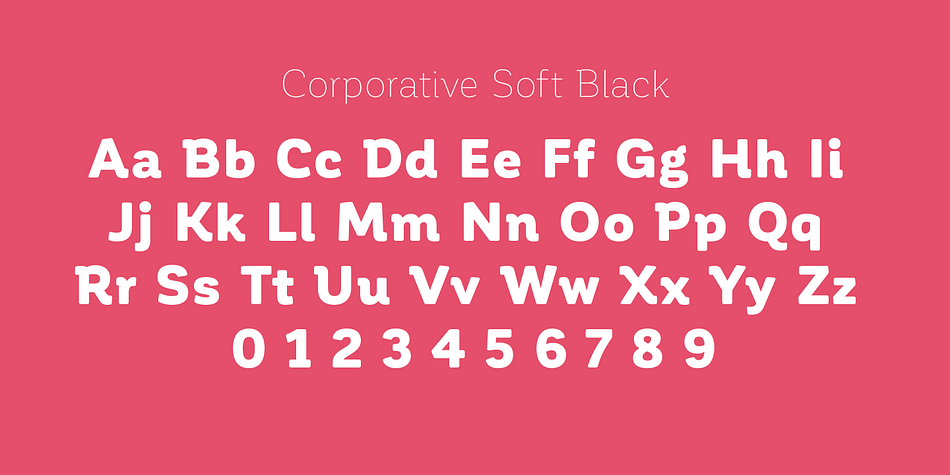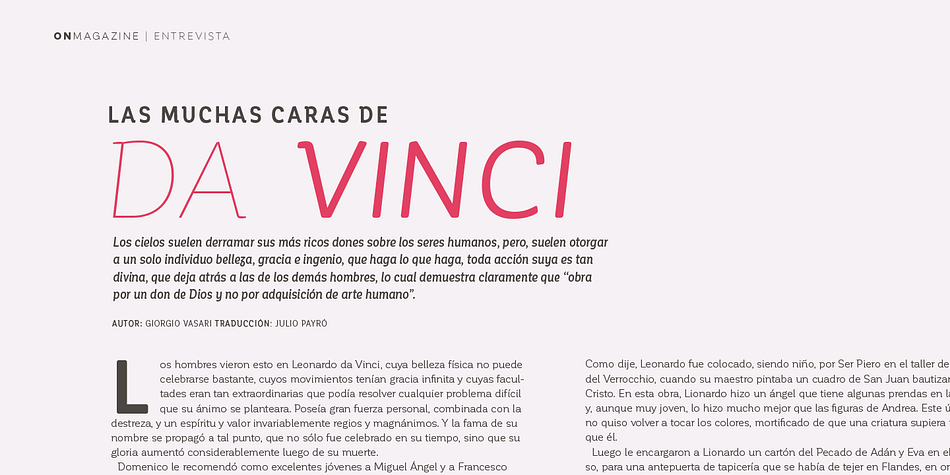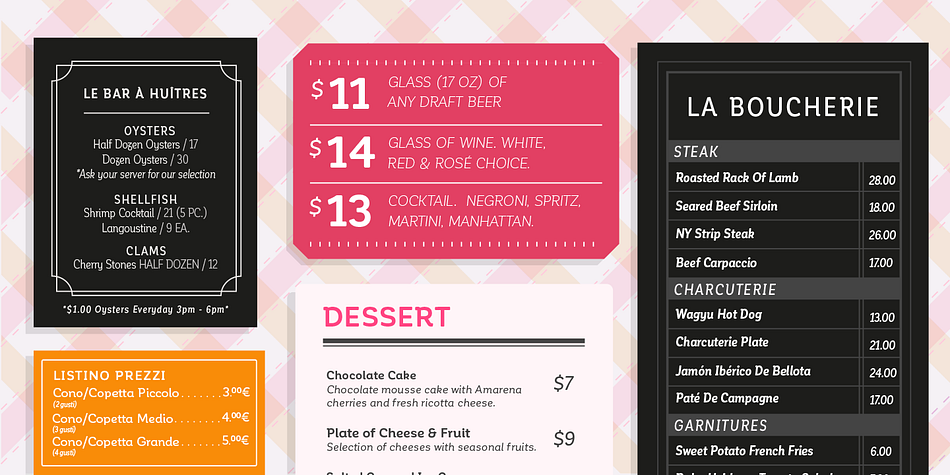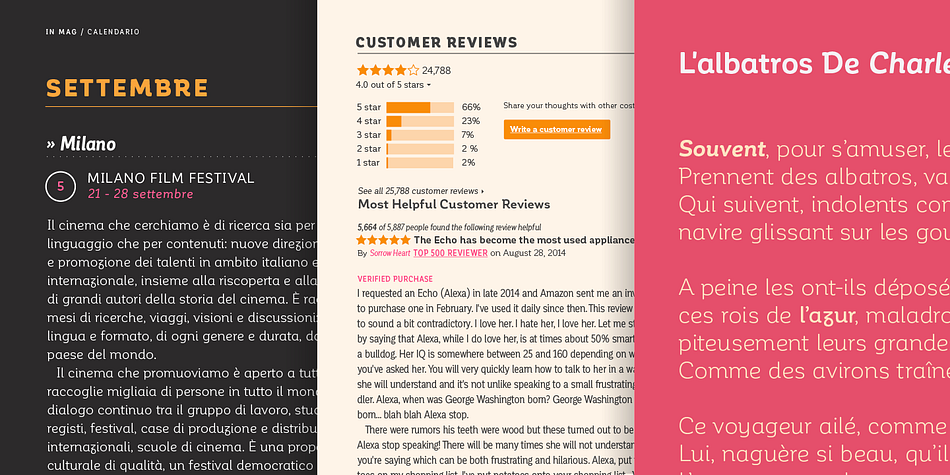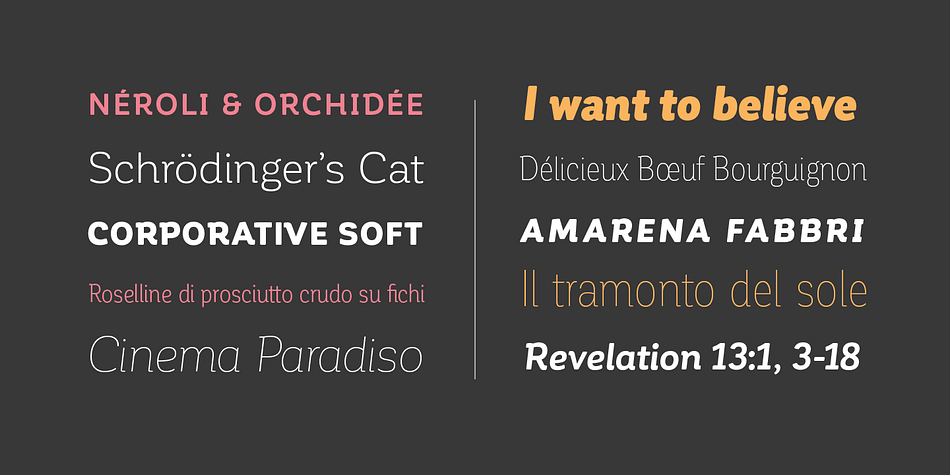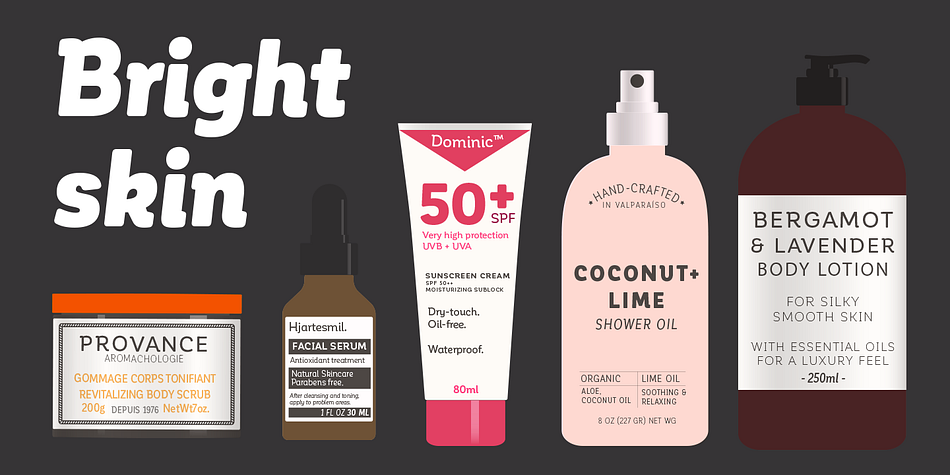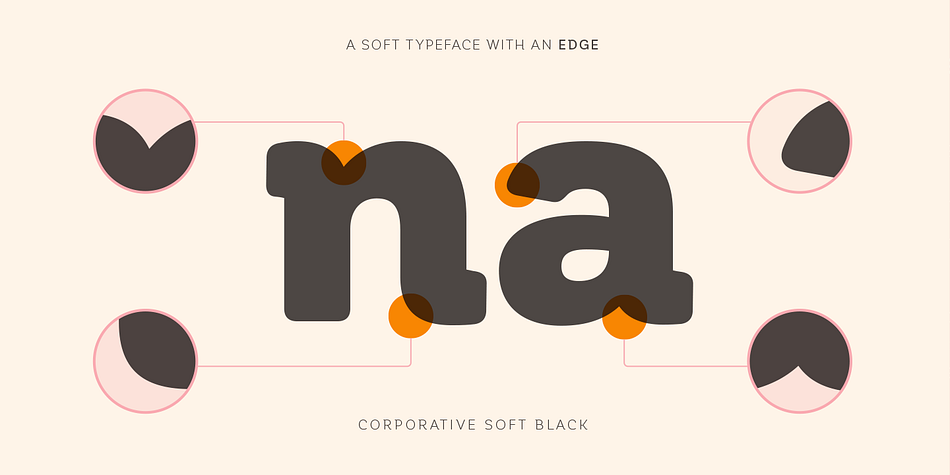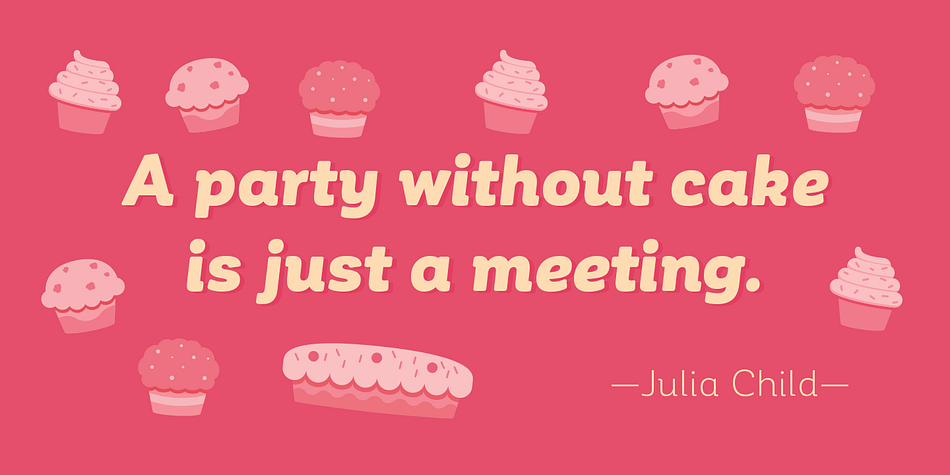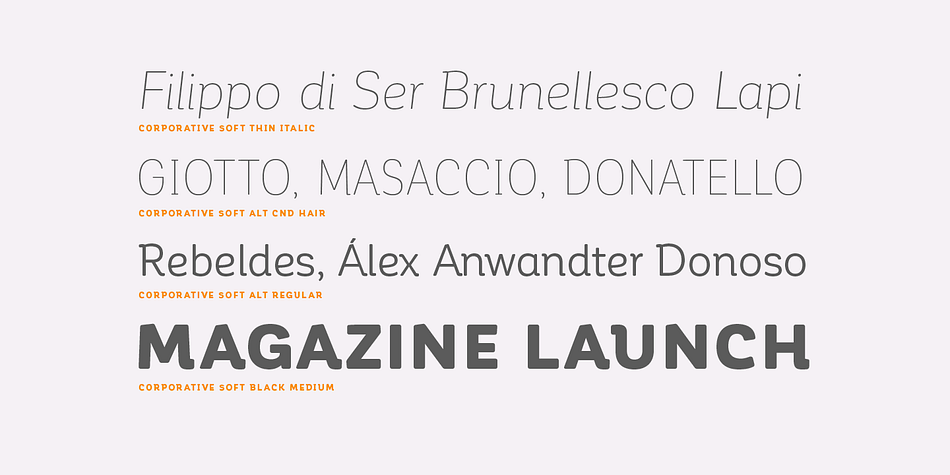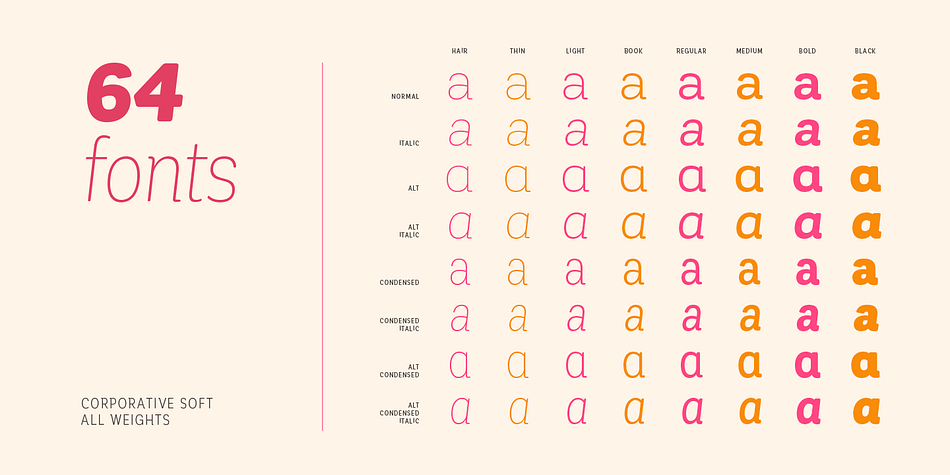
Designed by Javier Quintana, Eli Hernández and Rodrigo Fuenzalida, Corporative Soft is a sans serif font family. This typeface has sixty-four styles and was published by Latinotype.
Corporative Soft is the slightly rounded-edged version of Corporative. This font has a marked personality and distinctive traits, what makes it suitable to be used at large text sizes. At the same time, the smooth transition from straight to curved lines gives the font a more friendly feel. This display typeface is the perfect choice for logos, posters, signs, branding, packaging and so on!
Corporative Soft comes with the Latinotype’s standard set of 350 characters, making it possible to use the font in 128 different languages.
Corporative Soft provides users with a wide range of characters, weights and widths for every project. By combining different variants, designers can achieve the best results.
The family consists of 64 fonts: a basic family that includes 8 weights plus italics, an alternative family of 8 weights with matching italics and 2 condensed families, one regular and one alternative, both with italics.
Corporative Soft was created by Latinotype Team and developed by Javier Quintana, Eli Hernández and Rodrigo Fuenzalida, under the supervision of Luciano Vergara and Daniel Hernández.